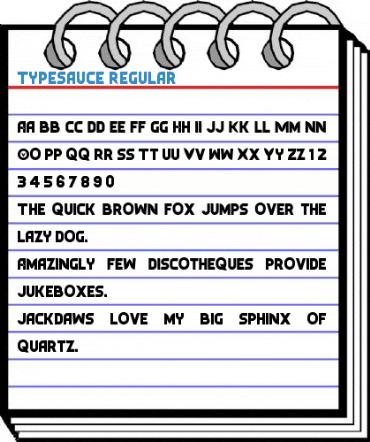
Typesauce Regular Font
"Typesauce" is a typeface based on an original logo design by Evan Hogan|@CWCVille97 https://booru.vineshroom.net/post/view/32299), made for Vinesauce, a Twitch.TV streaming group.